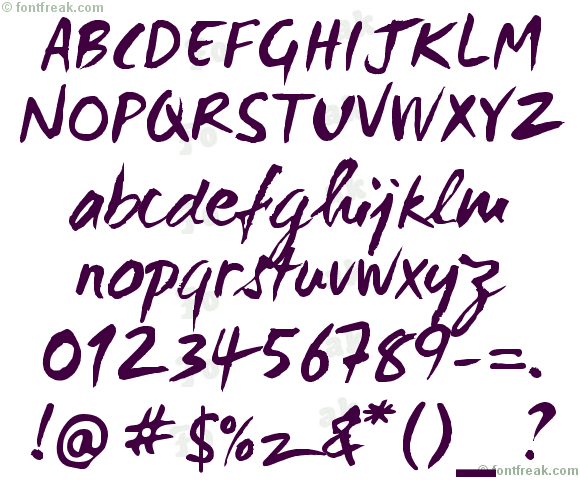
WC Mano Negra Bta
WC Mano Negra, designed by Christophe Féray in 2005, is a striking display font that captivates with its bold and expressive style. This font falls into the decorative category, featuring a unique blend of modern and vintage influences that make it stand out in various design contexts. The strokes are thick and robust, providing a strong visual presence, while the slight contrast in weight offers an appealing dynamic. The spacing is well-balanced, allowing each character to breathe, enhancing readability even in larger formats.
The WC Mano Negra font is perfect for a variety of creative applications. It shines in wedding invitations, where its artistic flair can add a touch of elegance and personality. Movie posters also benefit from its boldness, making titles pop and drawing viewers' attention. For restaurant menus, this font can create an inviting atmosphere, helping to convey the style and theme of the cuisine. Additionally, it can be effectively used in branding materials, such as logos and promotional graphics, where a memorable visual identity is crucial.
Targeted towards graphic designers, small business owners, and content creators, the WC Mano Negra font offers versatility and character that can elevate any project. Its unique design captures the essence of creativity and individuality, making it a favorite among those who seek to make a statement in their work.
What truly sets the WC Mano Negra font apart is its distinctive personality and artistic charm. With the option for a WC Mano Negra font free download, users can easily incorporate this eye-catching typeface into their projects, allowing for creative exploration without financial constraints. Its strong visual appeal and adaptability ensure that it remains a valuable asset in any designer's toolkit.